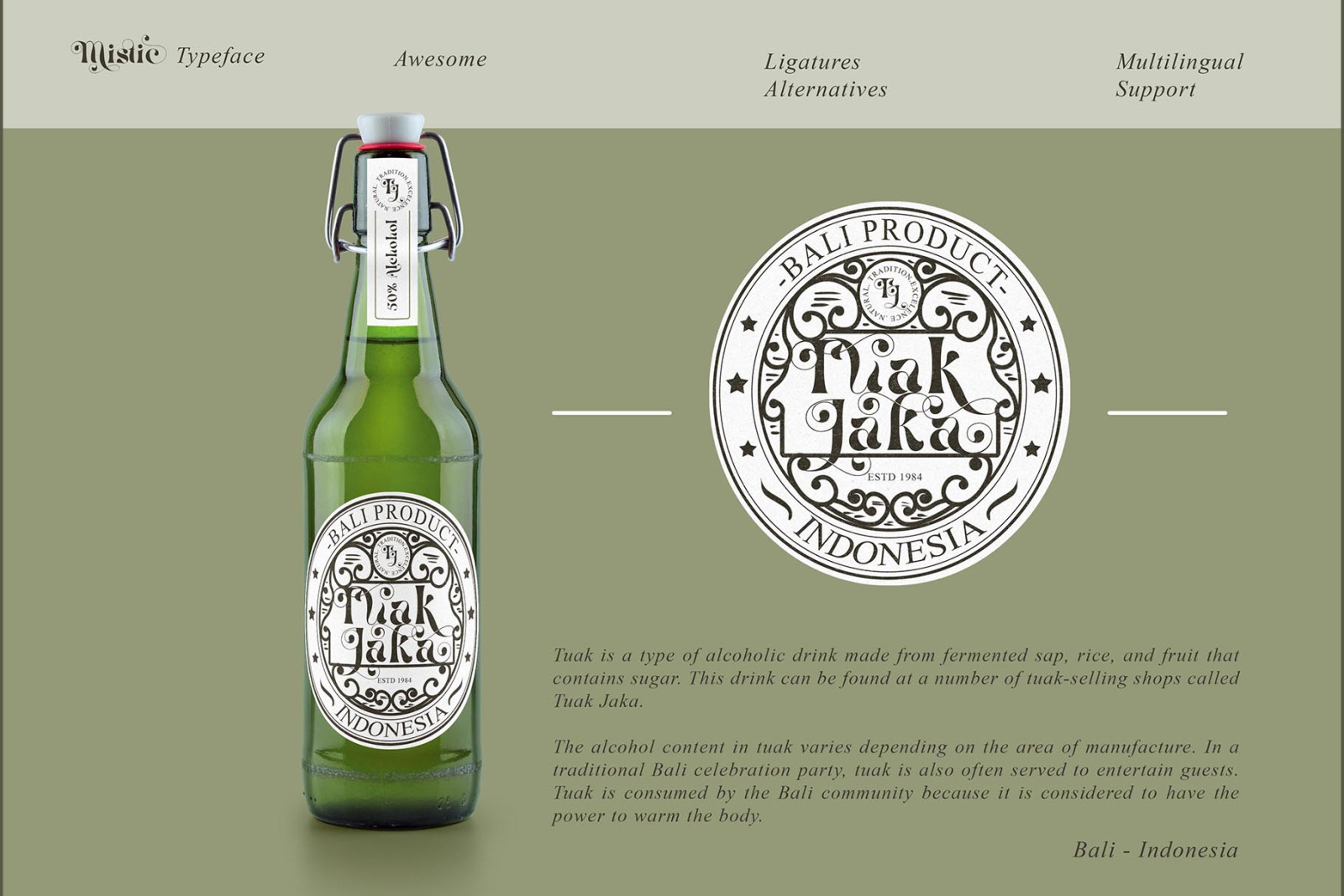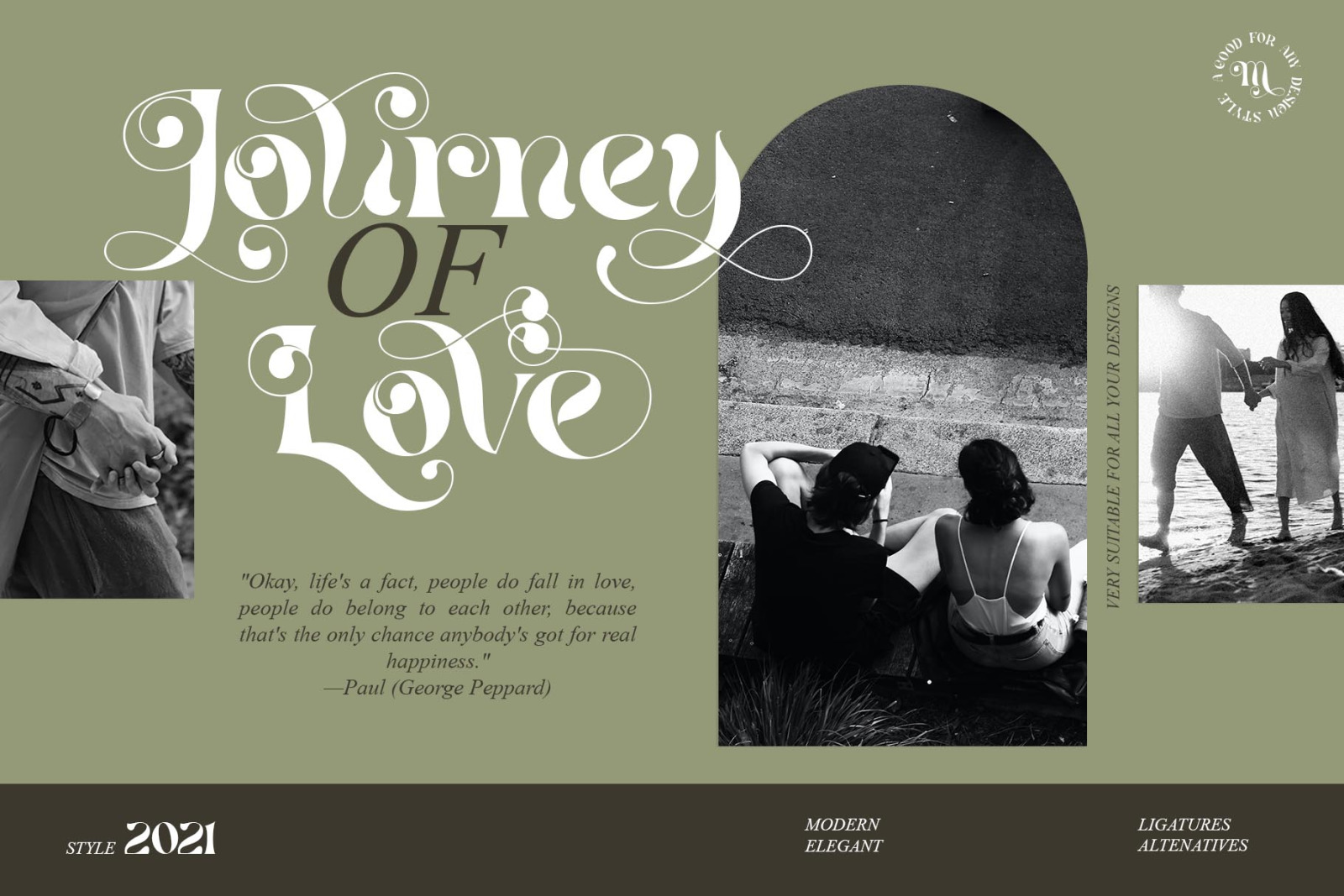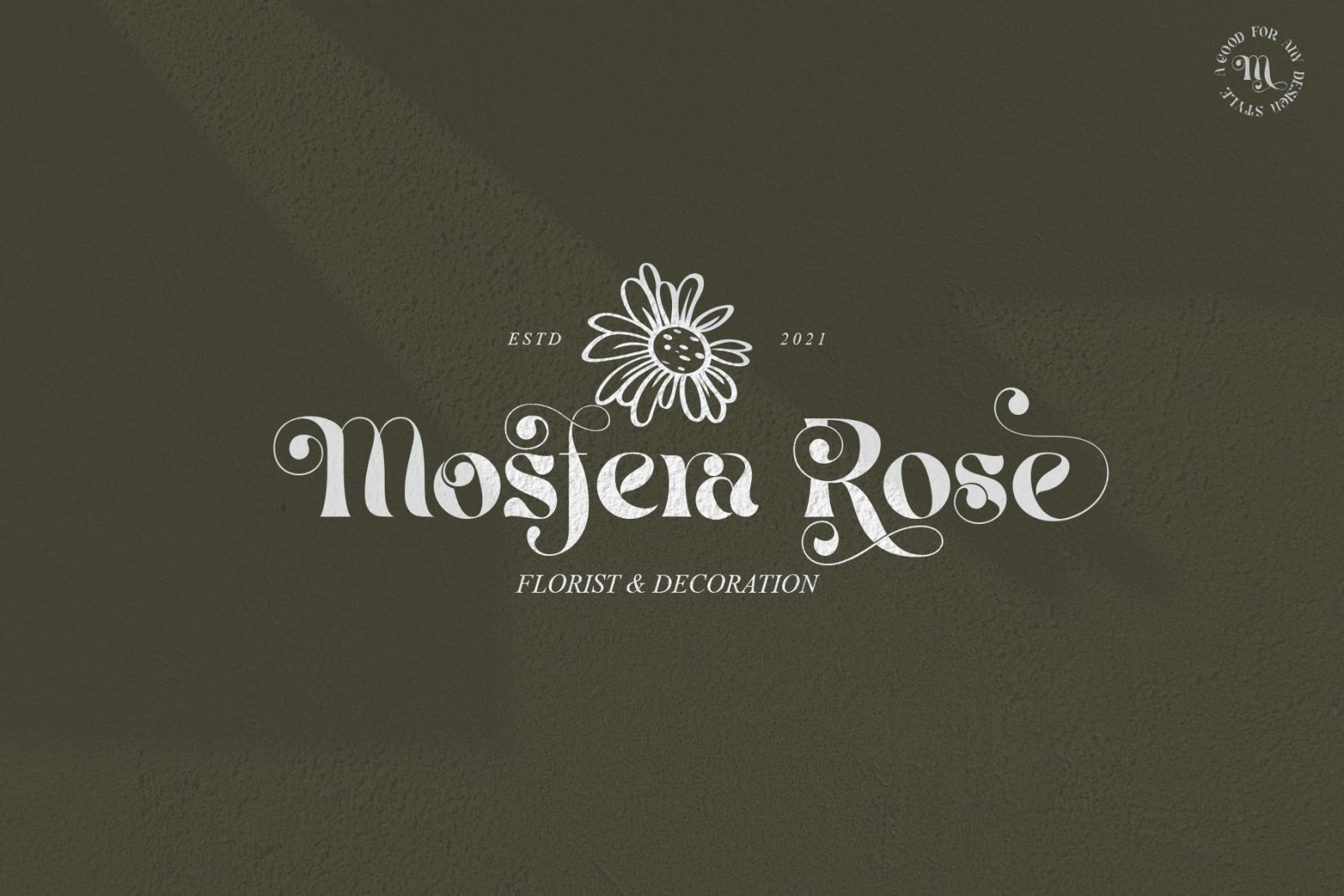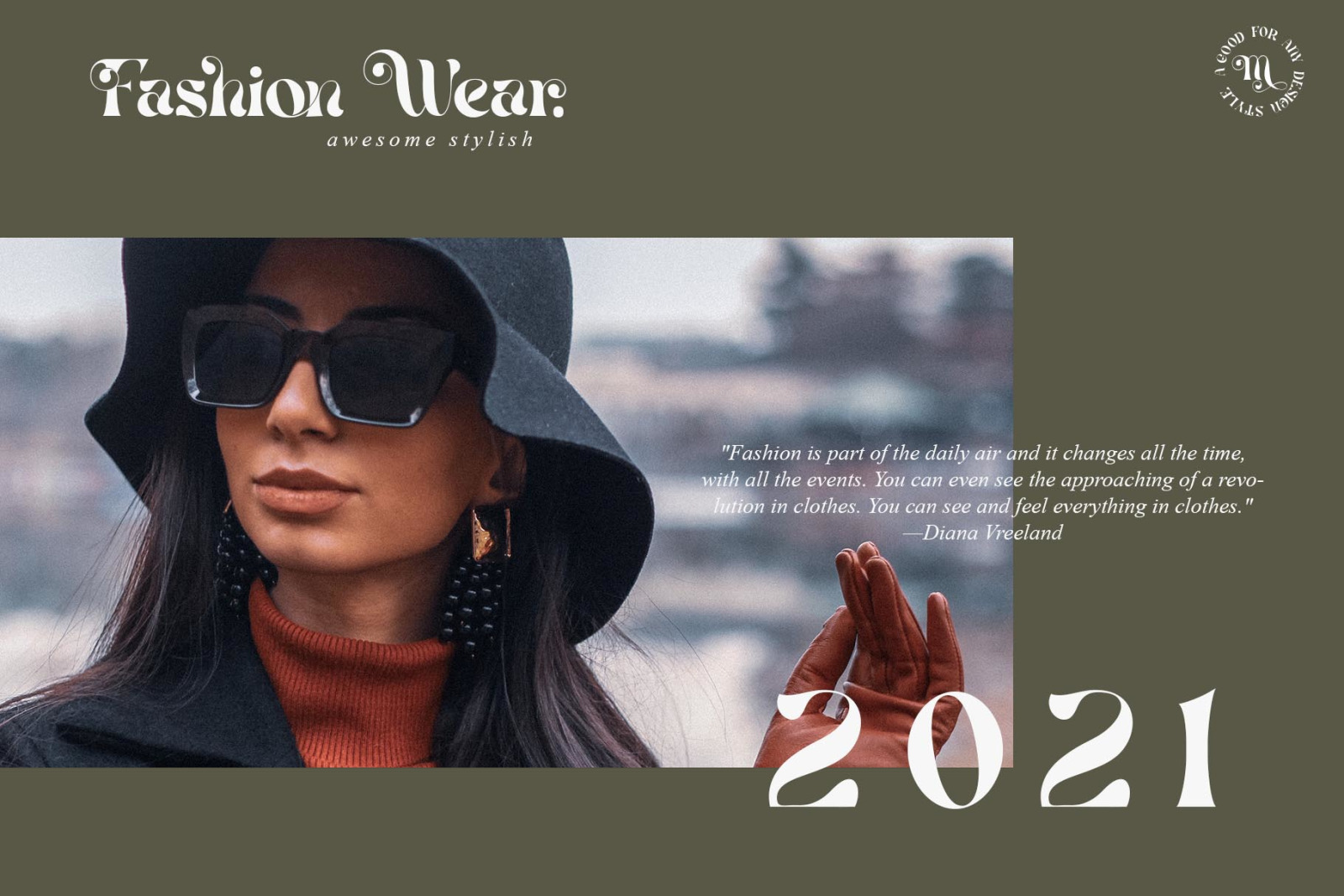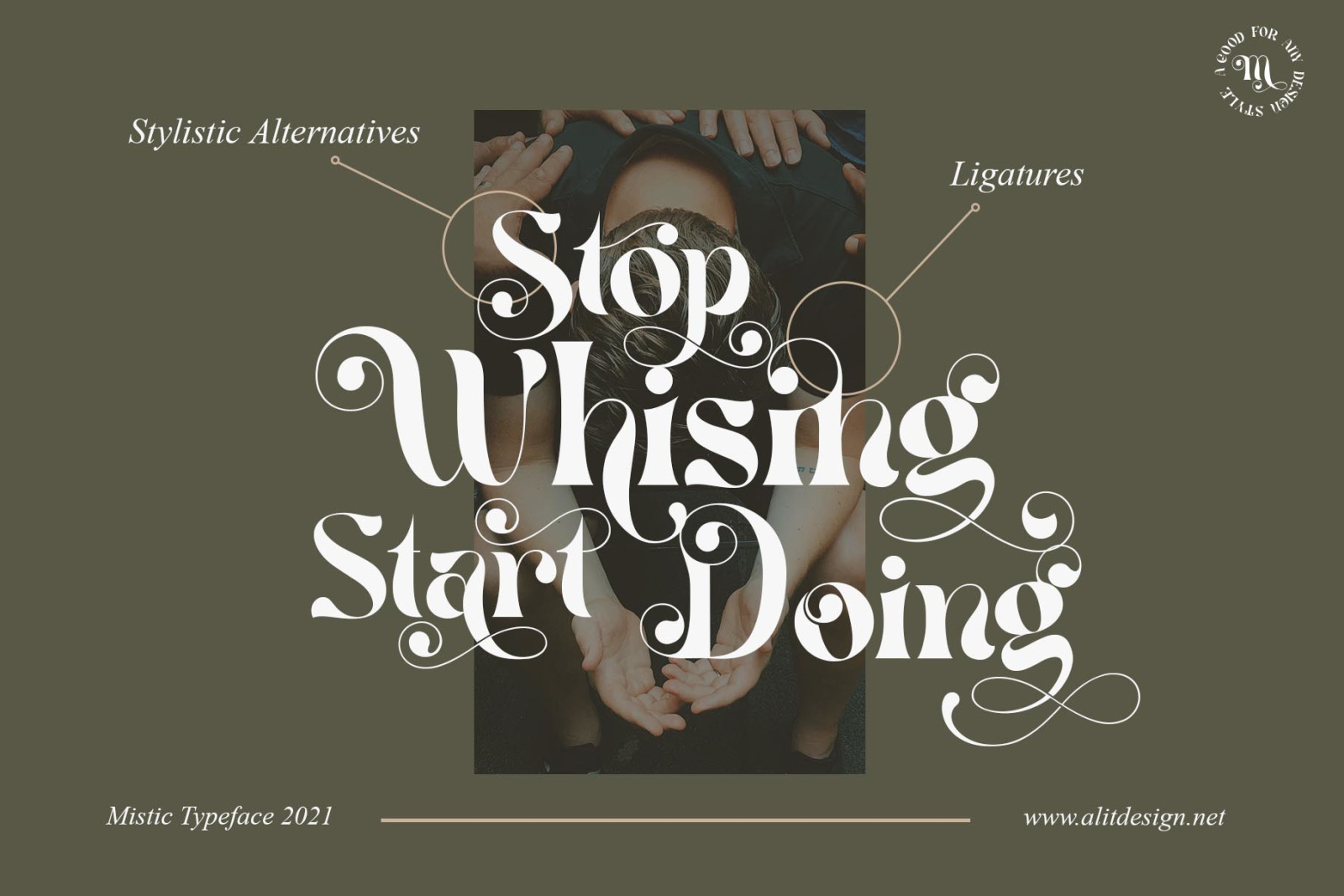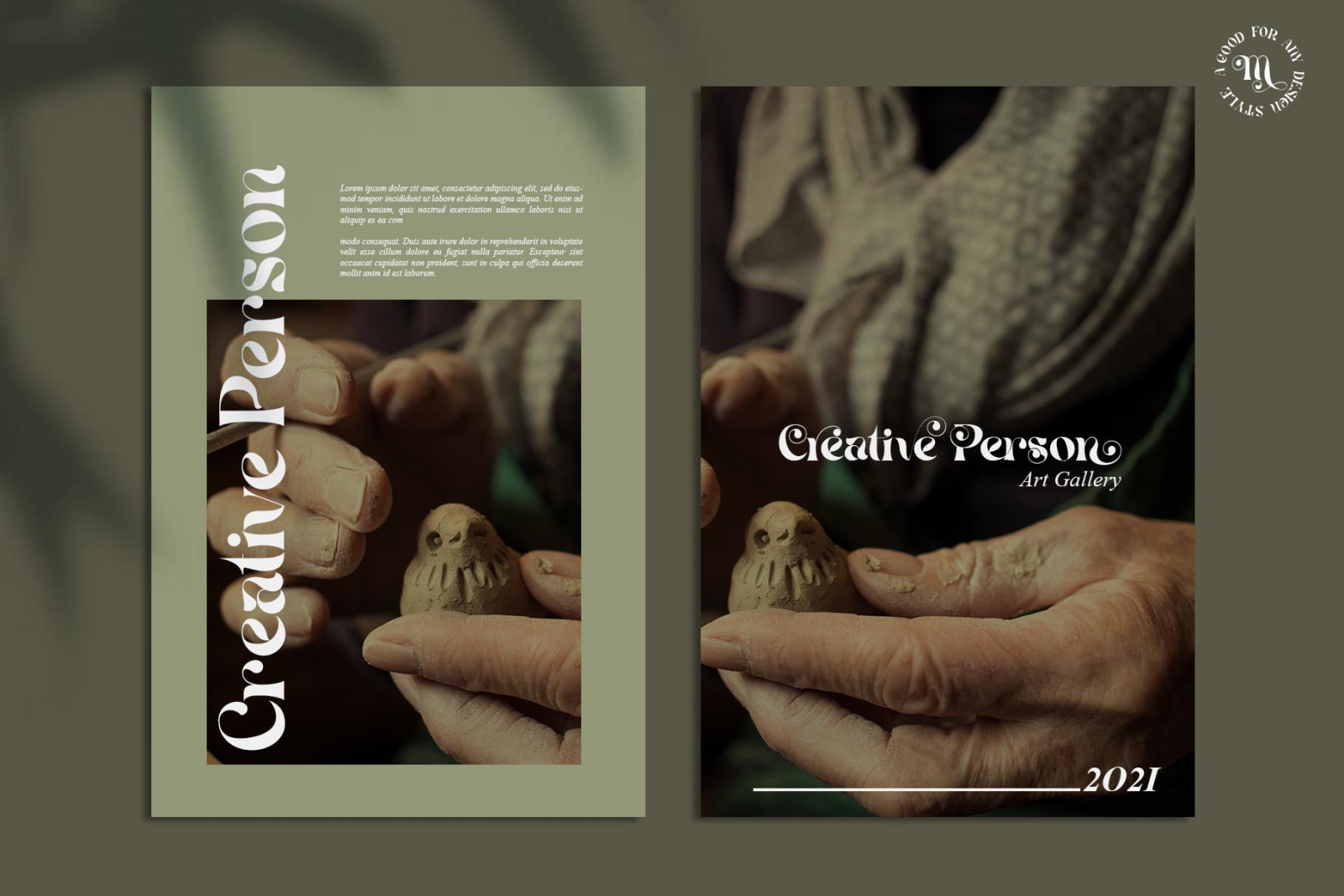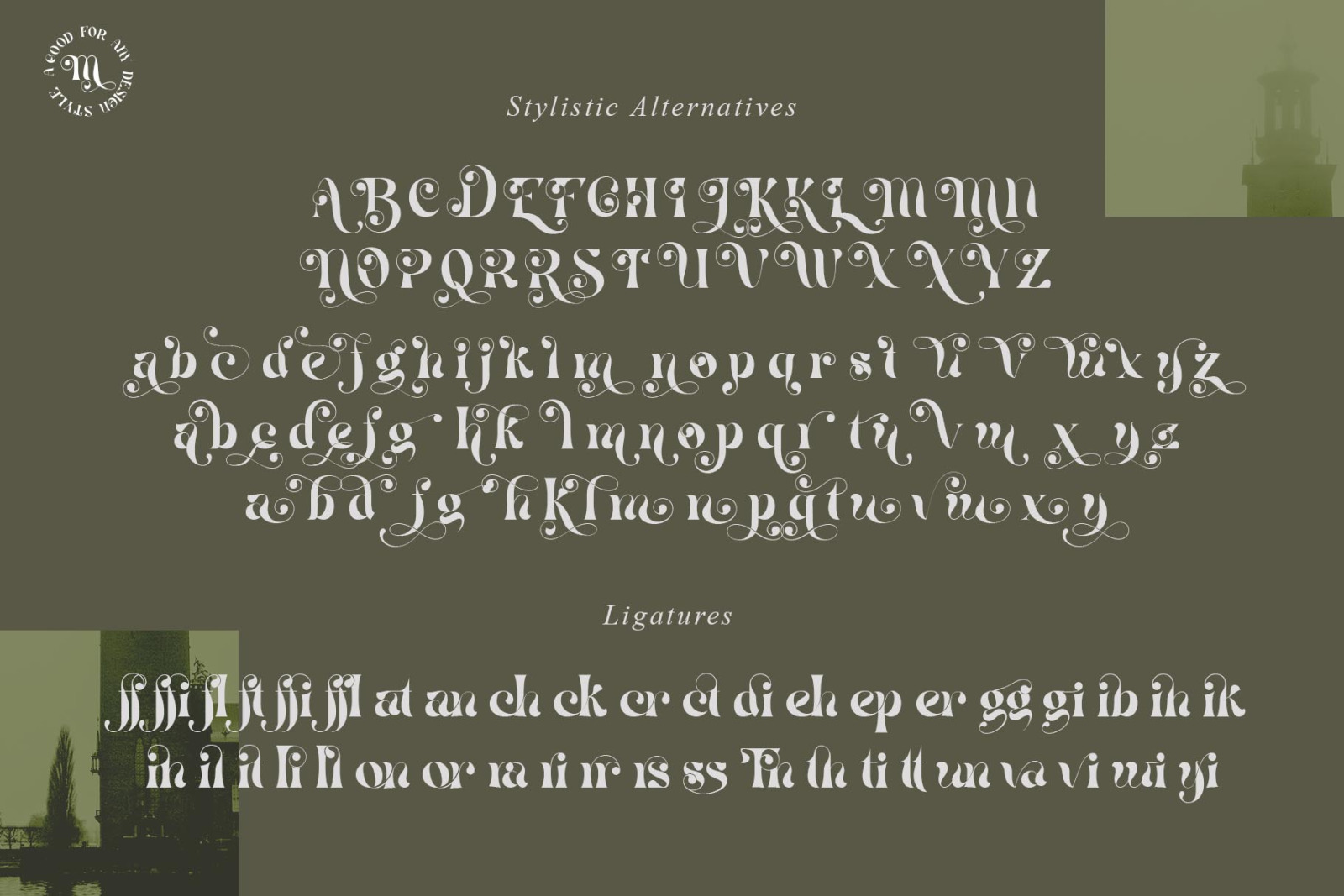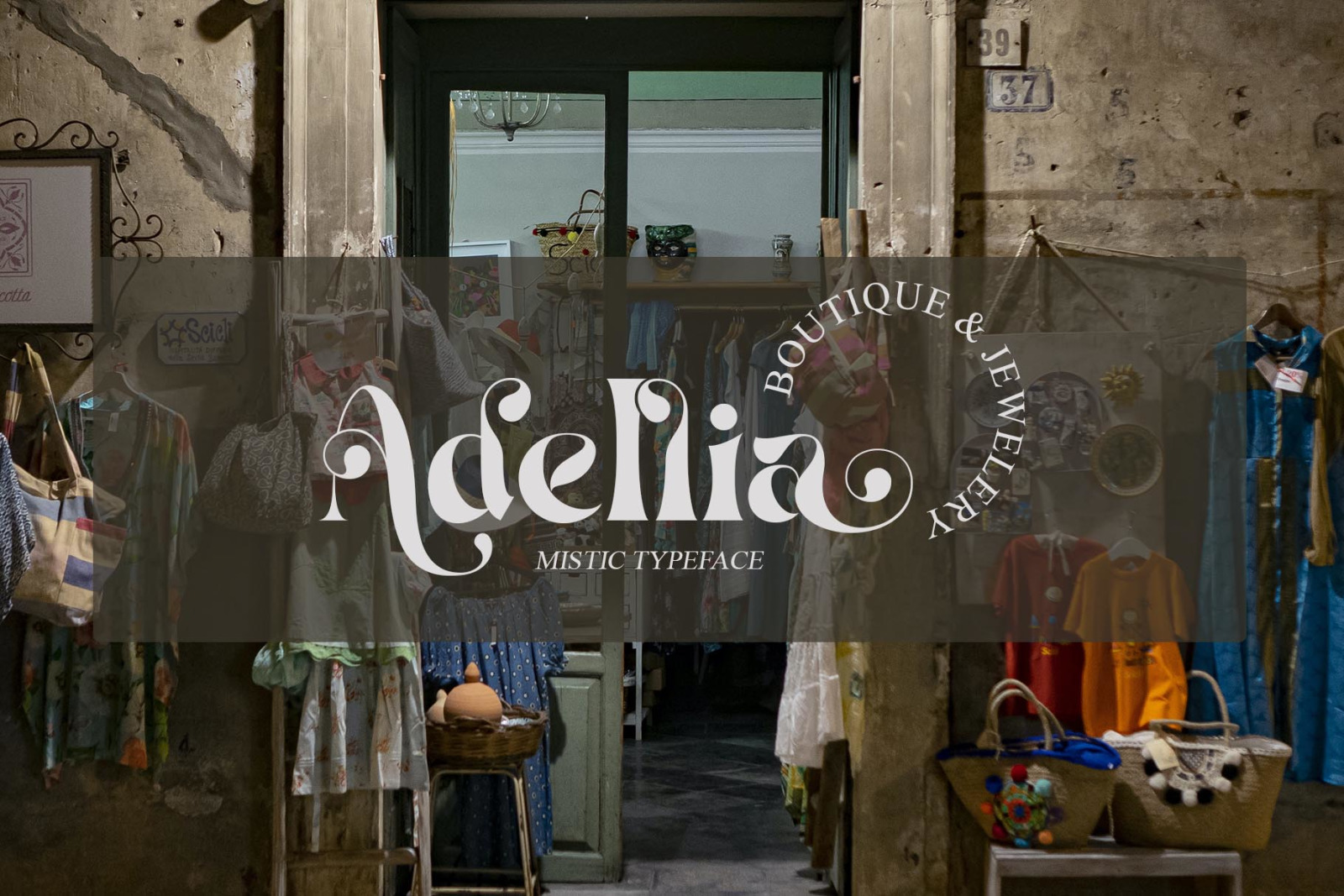
Mistic Typeface
Modern Serif font with swash alternate, created from the frequent use of typeface for wedding needs. This font has an elegant and bold concept. It is perfect for designs with romantic themes such as wedding properties, Valentine cards, romantic quotes and others.
Stylistic Alternates
Ligatures